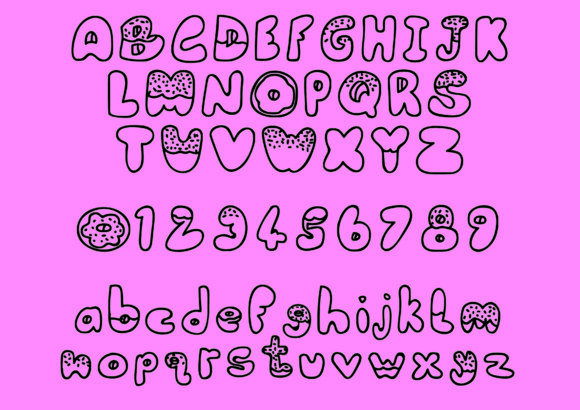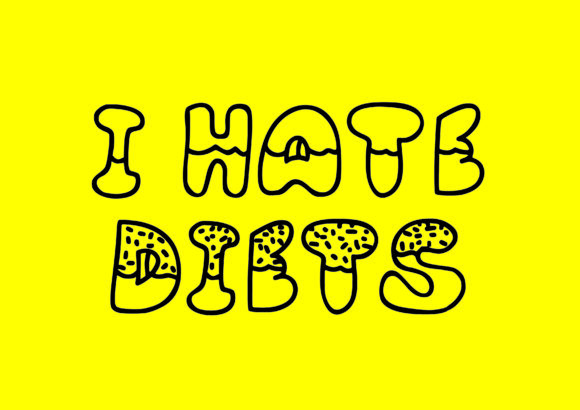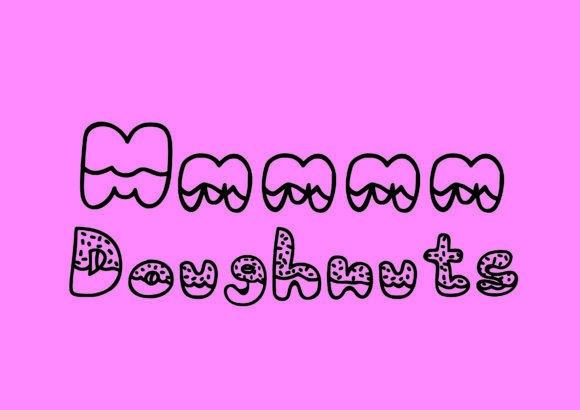
The Sweet Delight of Donut Font: A Designer’s Dream Come True
I’ll never forget the time I was working on a project for a client who wanted a playful, whimsical font to match their brand’s fun personality. I scoured the internet for the perfect font, but nothing seemed quite right. That was until I stumbled upon Donut Font – a scrummy font shaped after your favourite sweet treat. In this article, I’ll share my experience with Donut Font, its features, and how to make the most of it in your designs.
A Personal Review of Donut Font
Donut Font has quickly become one of my go-to fonts for projects that require a touch of playfulness. Here’s what I love about it:
- ✨ Four weights to choose from, allowing you to create a range of designs, from subtle to bold.
- ✅ The option to mix and match different styles, such as sprinkles, icing, and plain, to create a unique look.
- ✅ The font’s versatility – it can be used for a wide range of projects, from branding and packaging to social media graphics and invitations.
While Donut Font is a fantastic font, it’s not without its quirks. Here are a few things to keep in mind:
- ⚠️ Some of the glyphs and stylistic alternates can be a bit finicky, requiring a bit of experimentation to get just right.
- 🤔 The font’s playful nature may not be suitable for more formal or professional projects.
The Backstory of Donut Font
Donut Font was designed with one goal in mind: to create a font that’s as sweet and playful as your favourite treat. The designer, a self-proclaimed donut lover, wanted to create a font that would bring a smile to people’s faces. With its four weights and range of OpenType features, Donut Font is the perfect choice for designers who want to add a touch of whimsy to their projects.
| Font Name | Donut Font |
| Author | GraphicsBam Fonts |
| What is Donut Font? | Donut Font is a scrummy font shaped after your favourite sweet treat. It has four weights and a range of OpenType features, making it perfect for creating playful and whimsical designs. |